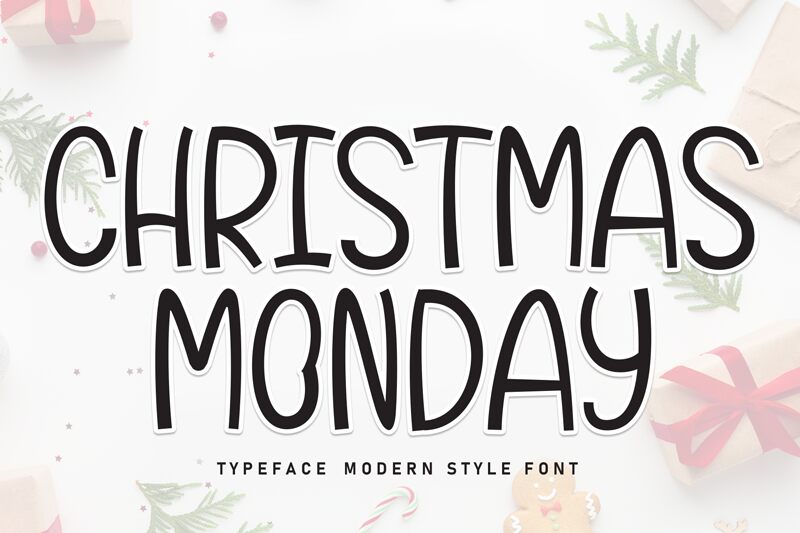
Christmas Monday
Christmas Monday font by Andi Moz causes whimsy and excitement with its irregular, quirky characters. The free handwritten font holds and casual style and an artistic flair that gives it a hand-drawn feel. Although slightly disorderly, the letters hold a magical power to draw attention to your designs.
Use Christmas Monday in Christmas cards, gift tags, customer feedback forms, wall decorations, wallpaper design patterns. Other uses include menus for ice-cream store shops or juice bars, sticky notes designs and diaries/planners for students.